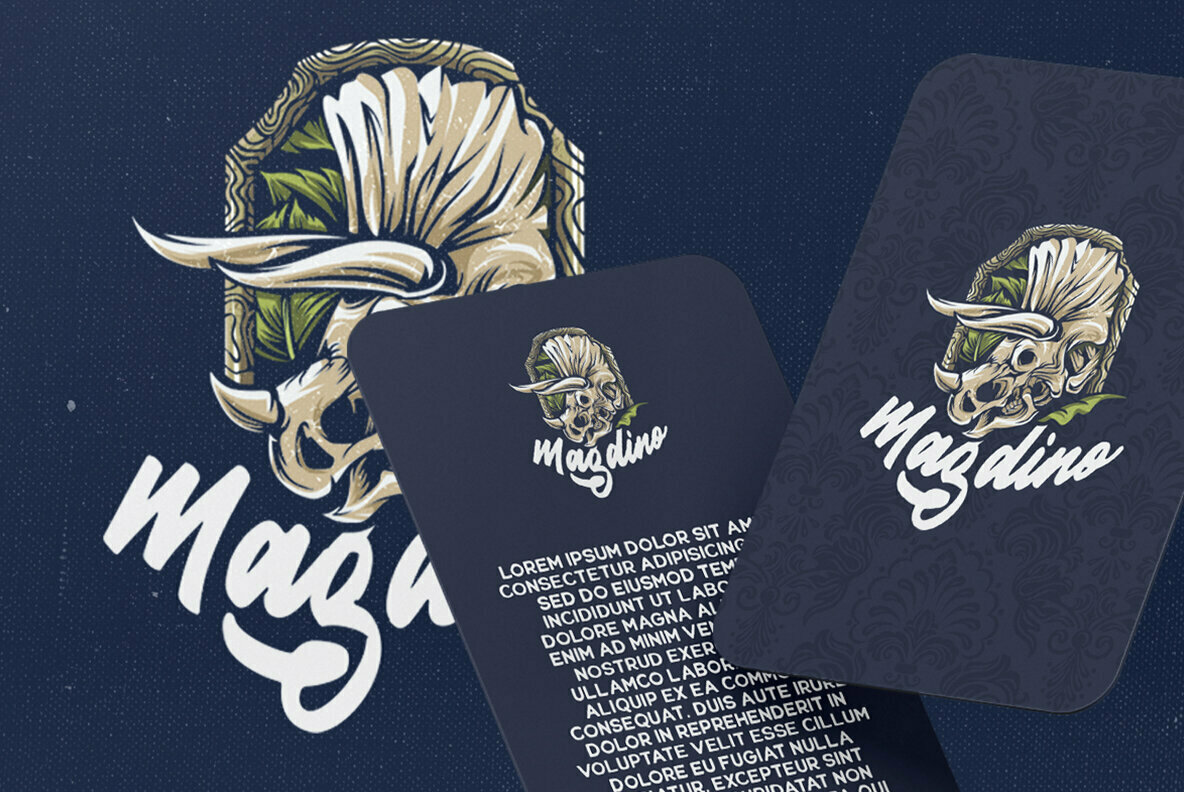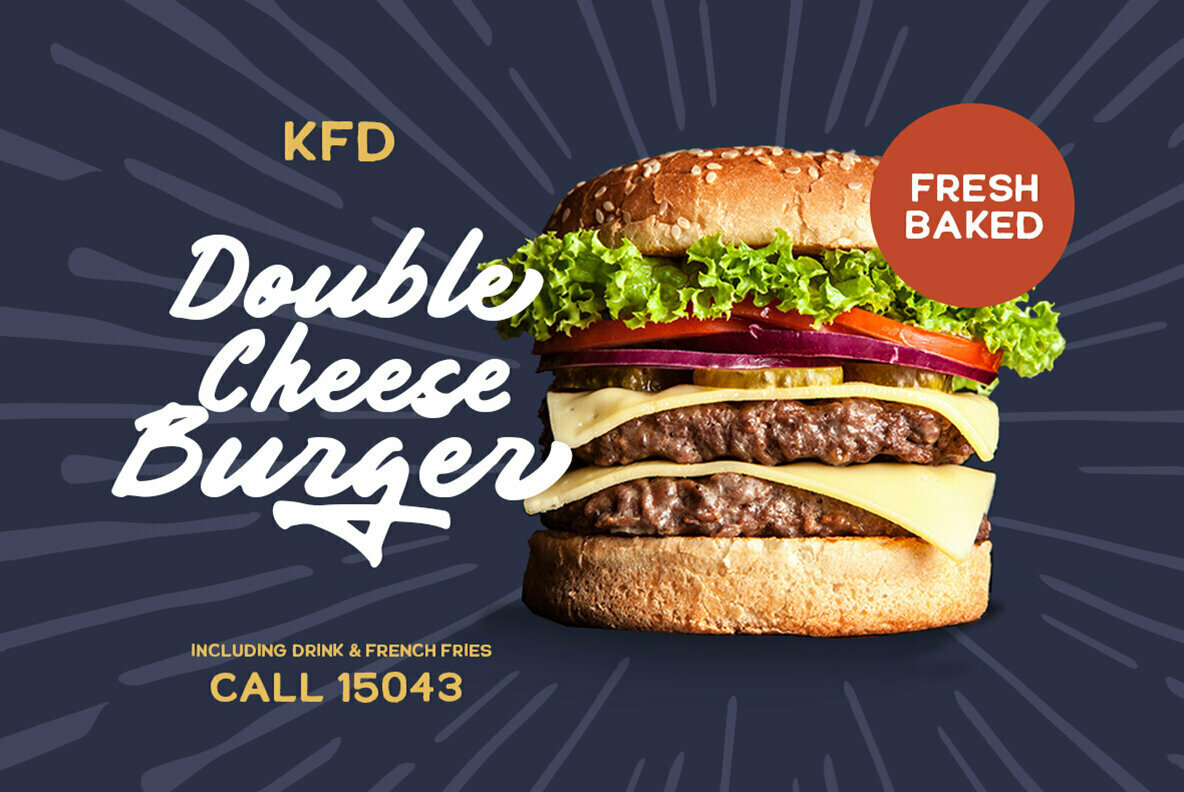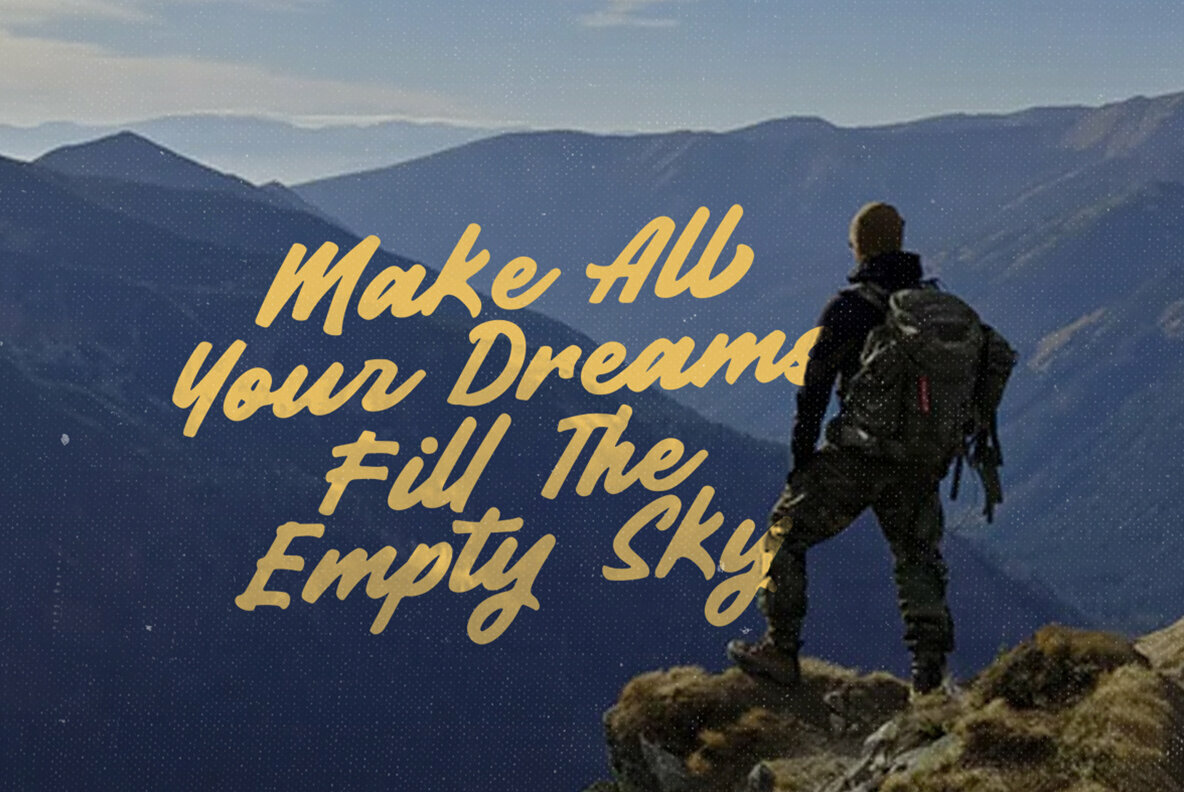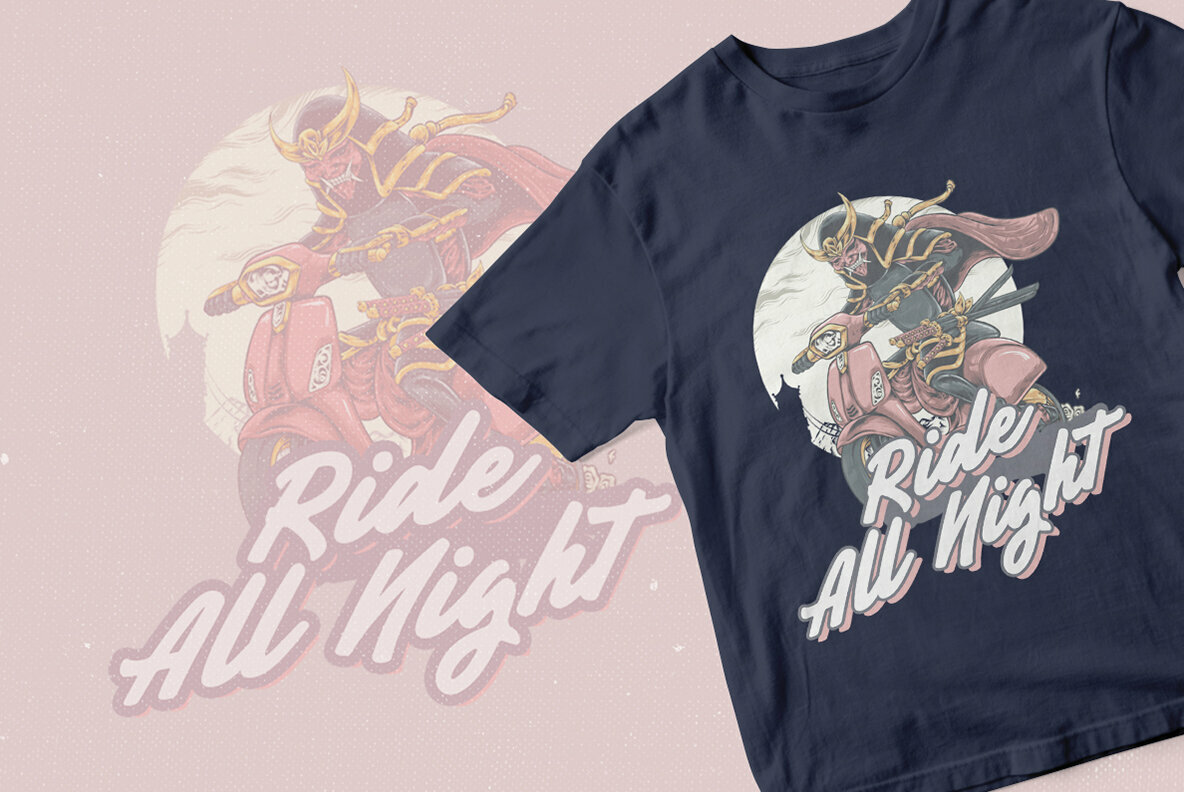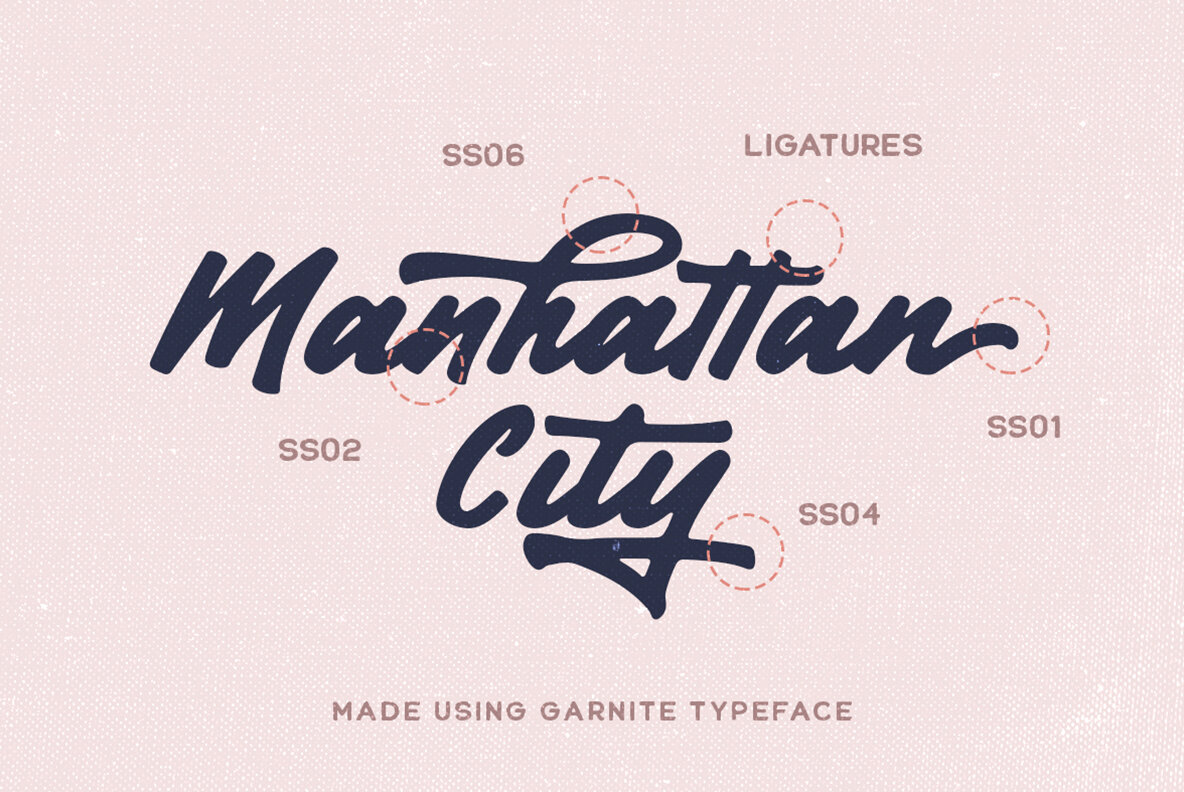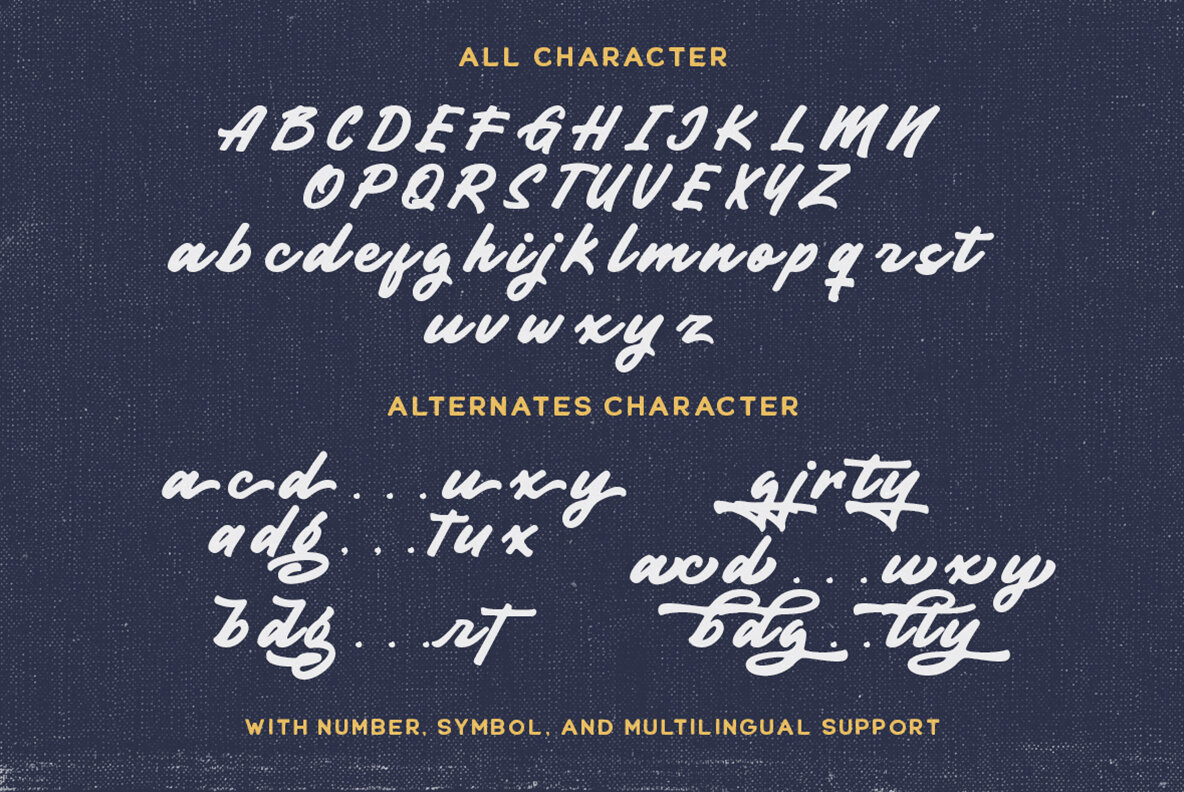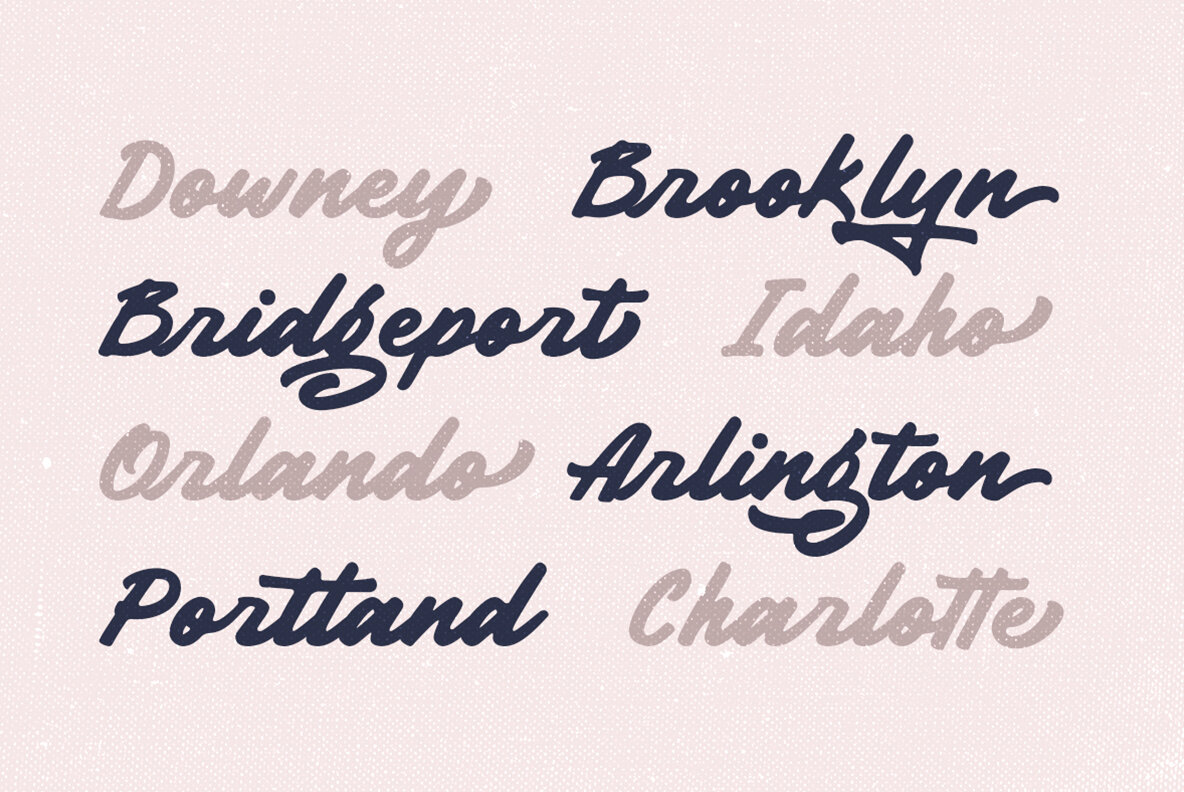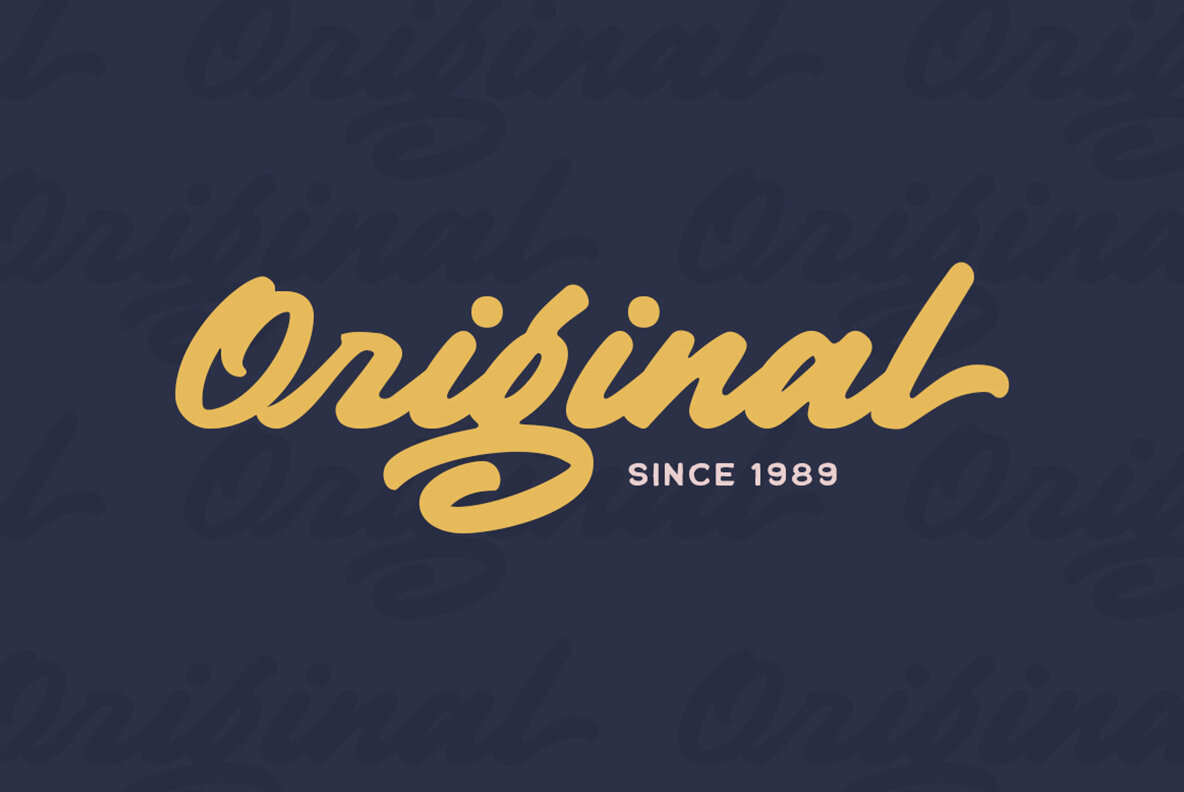
Garnite Font
Garnite Regular
Garnite captures the essence of natural handwriting, carving a distinct niche in the world of typography. Its elegant strokes are tailored for a variety of formal applications. From crafting memorable logos to embellishing invitations, Garnite injects a unique charm into any project, seamlessly adapting to magazines, books, and greeting cards. Its versatility extends to packaging and advertising, as well as the fashion and beauty industries.Garnite: Graceful Handwritten Script Typeface